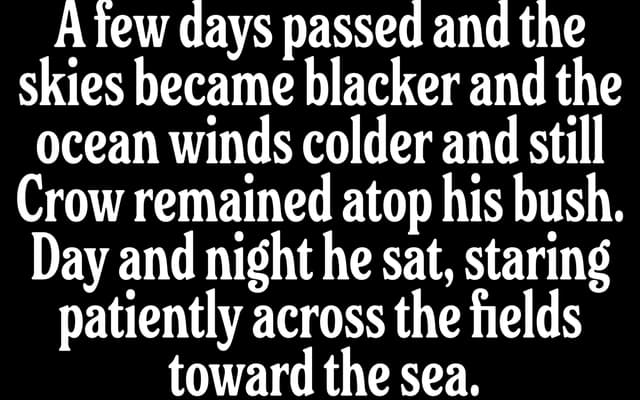
Friend Regular
A single-weight text serif from Beasts of England, presented through an original short story set in the Purbeck Hills of Dorset.
Friend Regular is a text serif offered in one weight, priced at £30 for a single-user licence. The foundry presents it through an extended original fable about a crow and a sheep on the Dorset coast, which serves as the specimen text. The typeface appears designed for sustained reading at body sizes, with a quiet, undemonstrative character suited to literary or editorial use.
The specimen text and overall presentation suggest a traditional text serif designed for sustained reading; the name and single-style offering point to a quiet, legible roman cut suited to body copy.